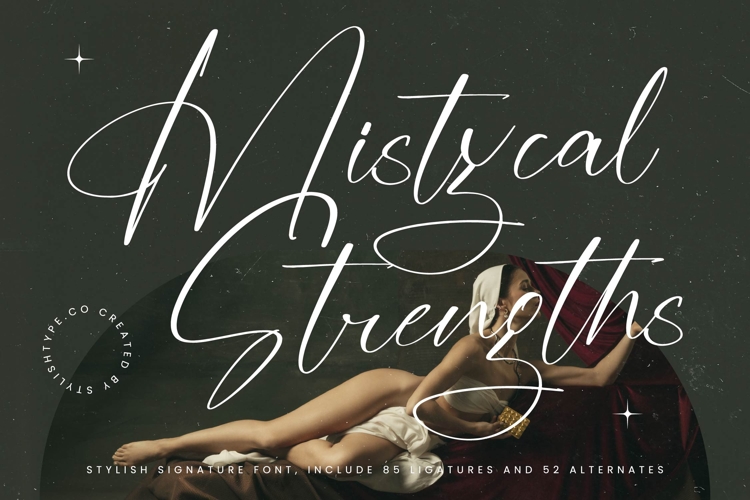
Mistycal Strengths - Stylish Signature Font
Mistycal Strengths - Stylish Signature Font lies in its deep character set, offering 85 ligatures and 52 alternates that ensure every design is unique and flows naturally, avoiding repetition. This rich typographic toolkit makes customization instantaneous, allowing designers to sculpt text that feels genuinely hand-penned and high-end, streamlining the creation of complex wordmarks and headlines.